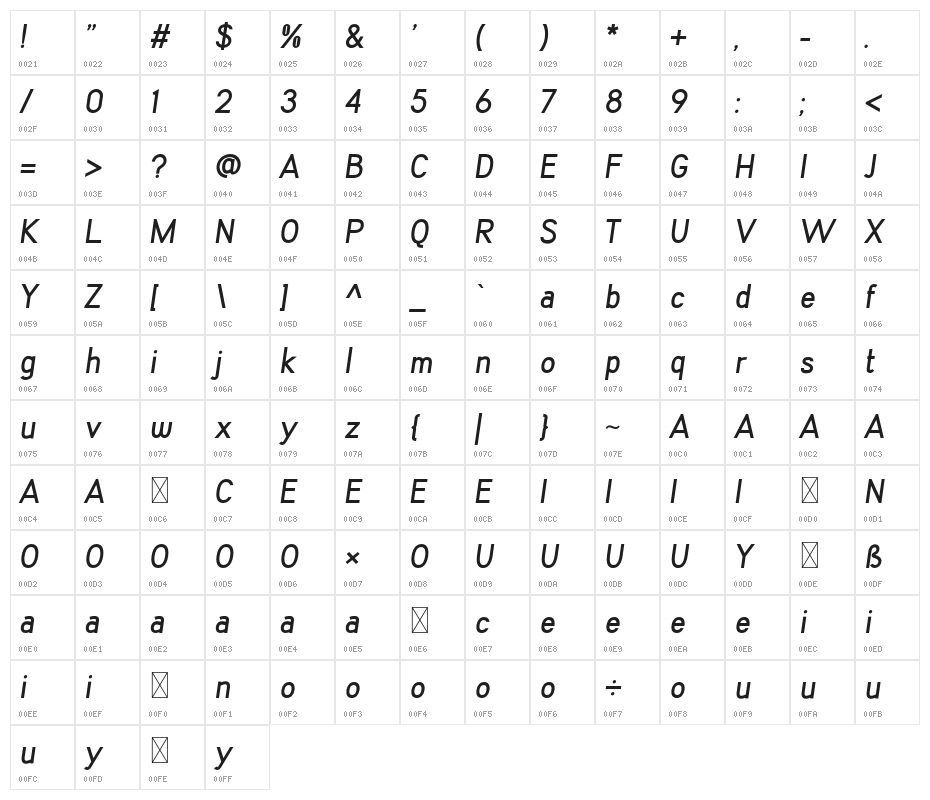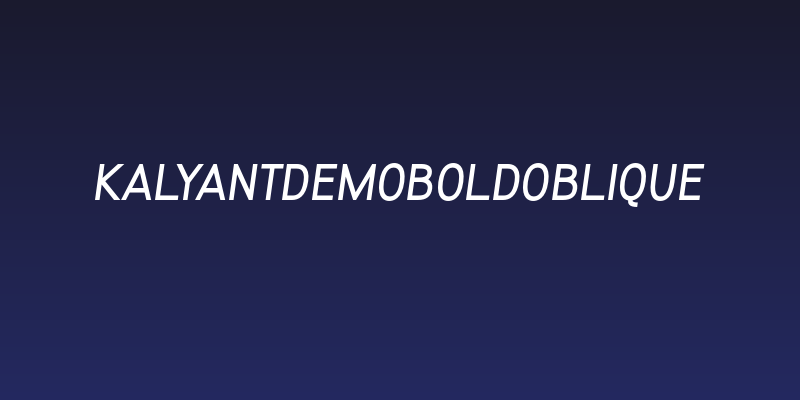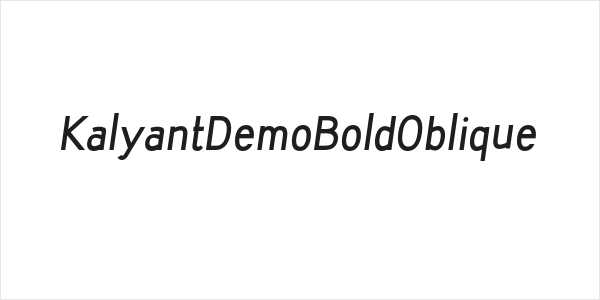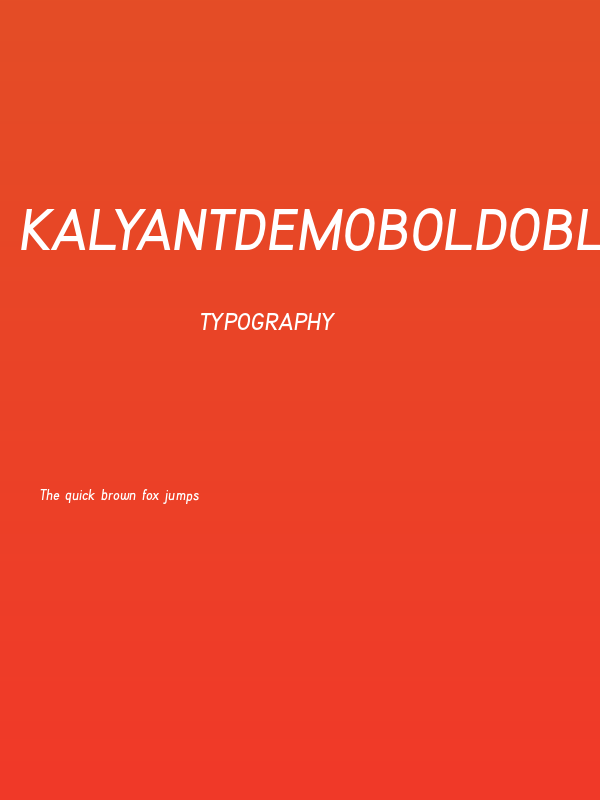
KalyantDemoBoldOblique Font
KalyantDemoBoldOblique Description
This font features a bold and oblique style, offering a dynamic and modern appearance. The characters are slightly slanted, adding a sense of motion and energy. The strokes are consistent in weight, providing a uniform look across all characters. The uppercase and lowercase letters are well-proportioned, ensuring readability. The numerals and special characters maintain the same boldness and slant, making them cohesive with the alphabet. This font is suitable for projects that require a strong and contemporary feel.
| Use Case | Headlines, Logos, Advertising |
| Proposed Projects | Ideal for branding, advertising, headlines, and digital media that require a bold and modern touch. |